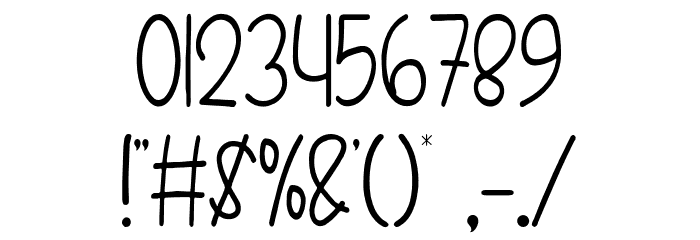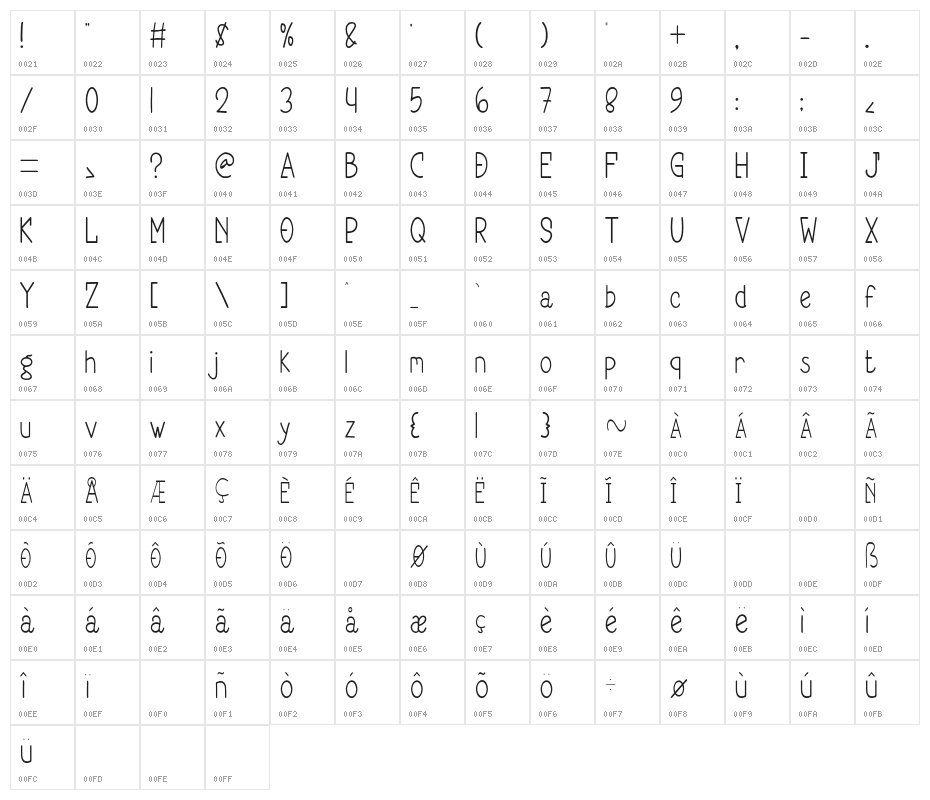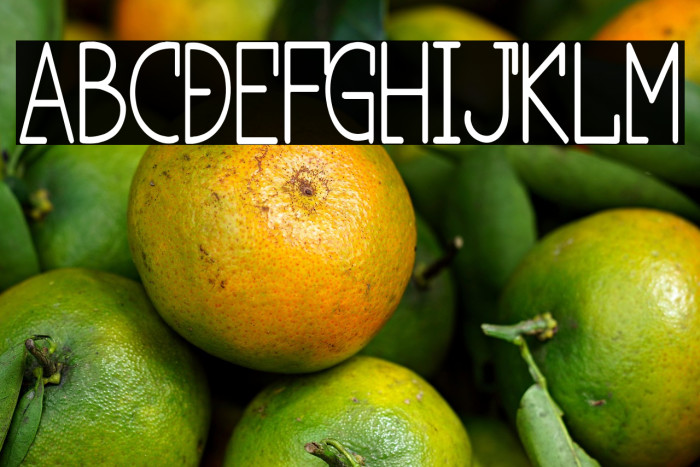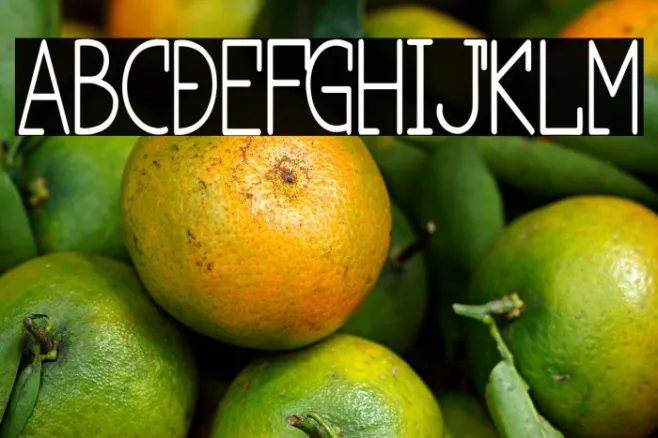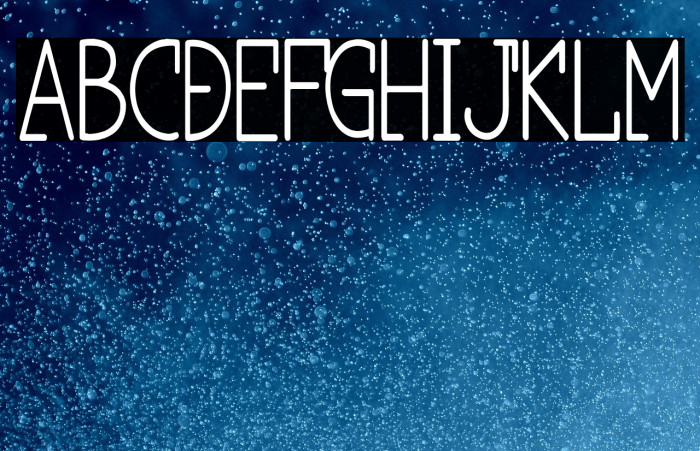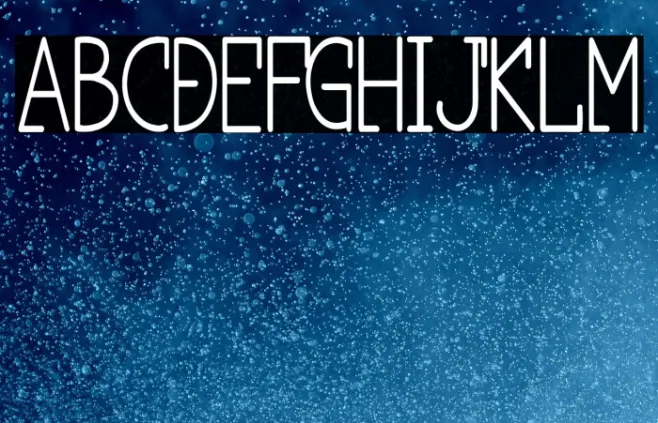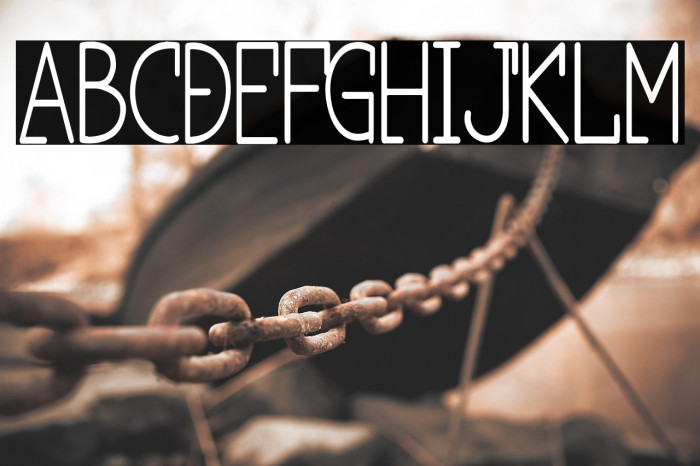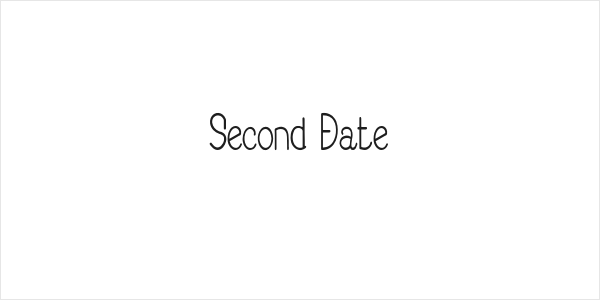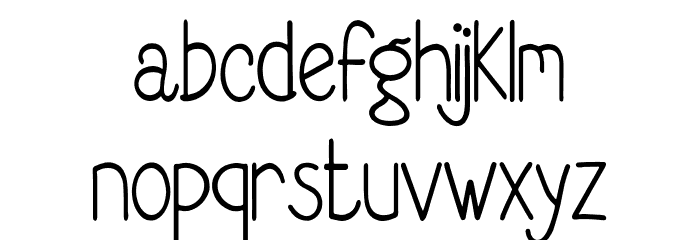
Second Date Font
Second Date Description
This font features a playful and whimsical style with tall, narrow characters that have a hand-drawn appearance. The strokes are consistent in width, giving it a monolinear look, and the characters have a slightly rounded finish that adds to its friendly and approachable feel. The uppercase letters are distinct with unique shapes, such as the curved 'R' and the open 'P'. The lowercase letters maintain the same playful aesthetic, with a particularly charming 'g' and 'j'. The numerals are clear and legible, matching the overall style of the alphabet. Special characters are included, maintaining the same quirky and fun design. This font is ideal for projects that require a lighthearted and informal touch.
| Use Case | Headlines, Logos, Casual Text |
| Proposed Projects | Ideal for children's books, greeting cards, playful branding, and casual invitations. |